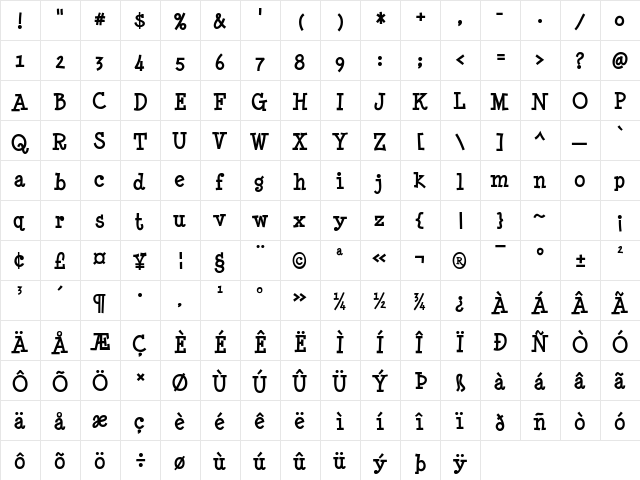
Minya Nouvelle Bold
Design Context for Minya Nouvelle Typeface
Minya Nouvelle offers clean, dependable letterforms without strong stylistic allegiance, making it a practical choice for designers who need flexibility. Its bold stroke weight gives it real presence on the page.